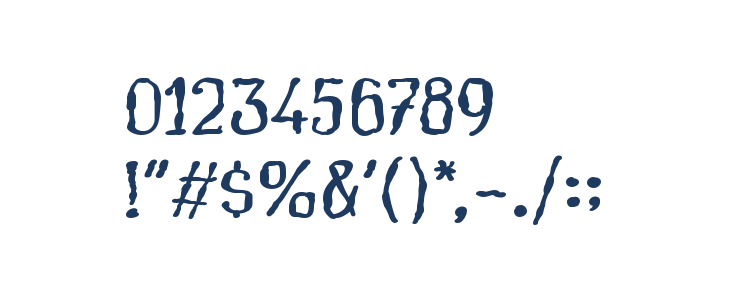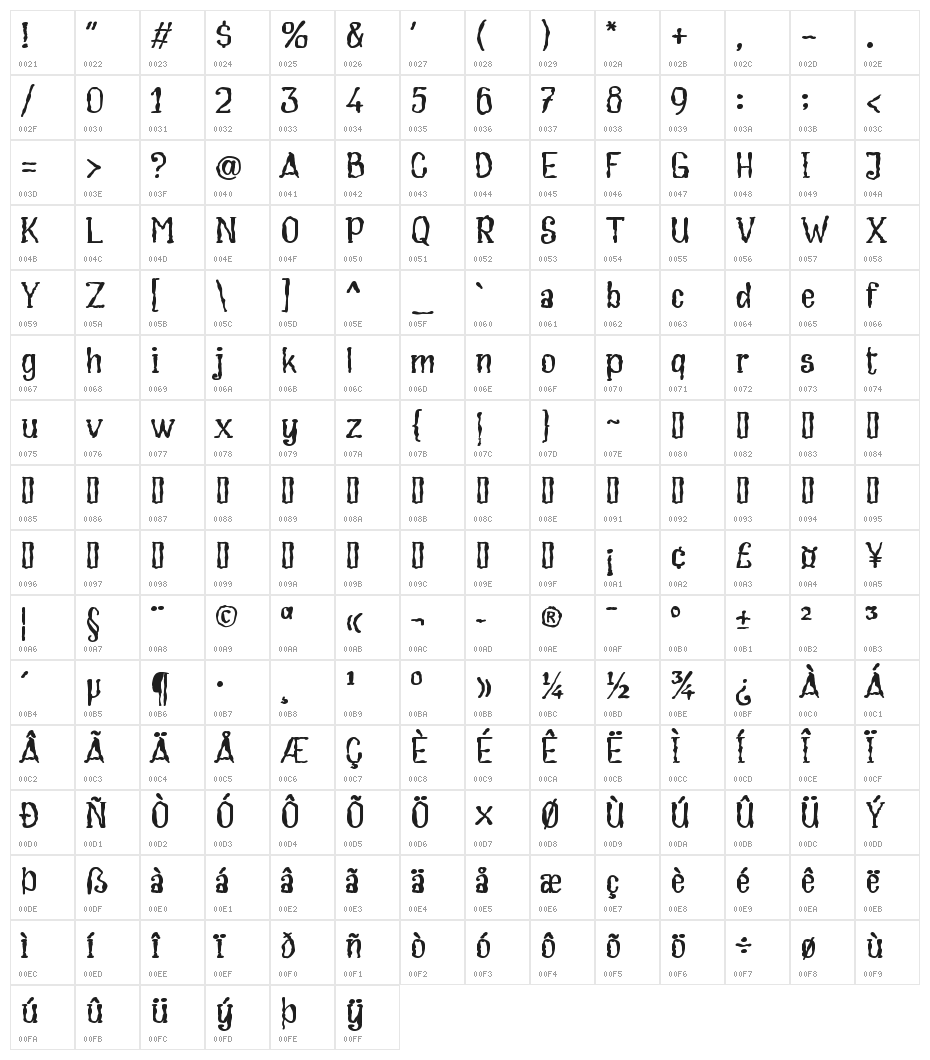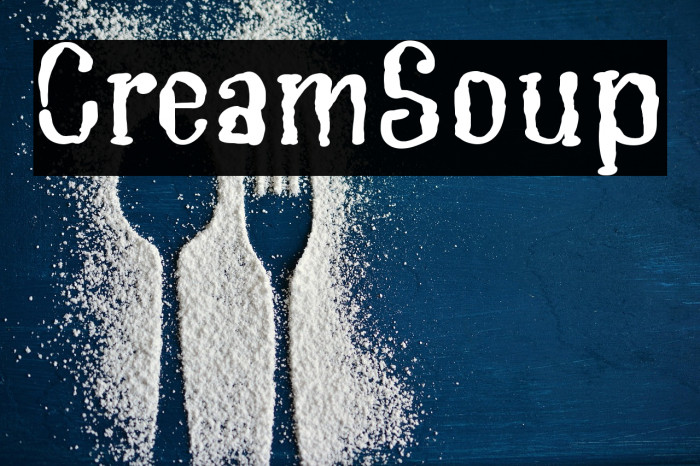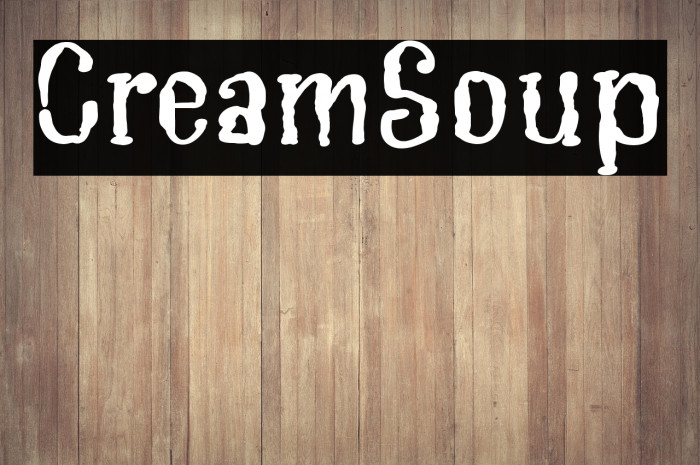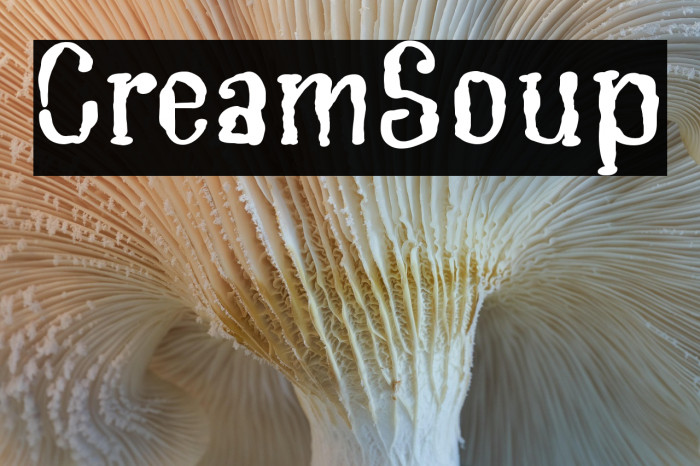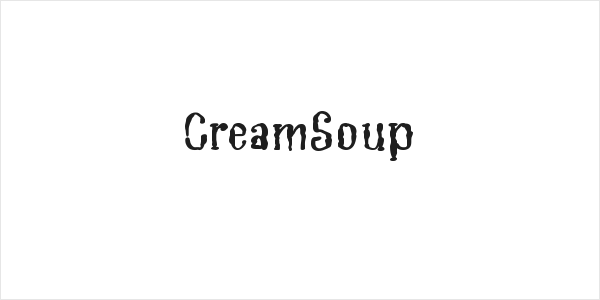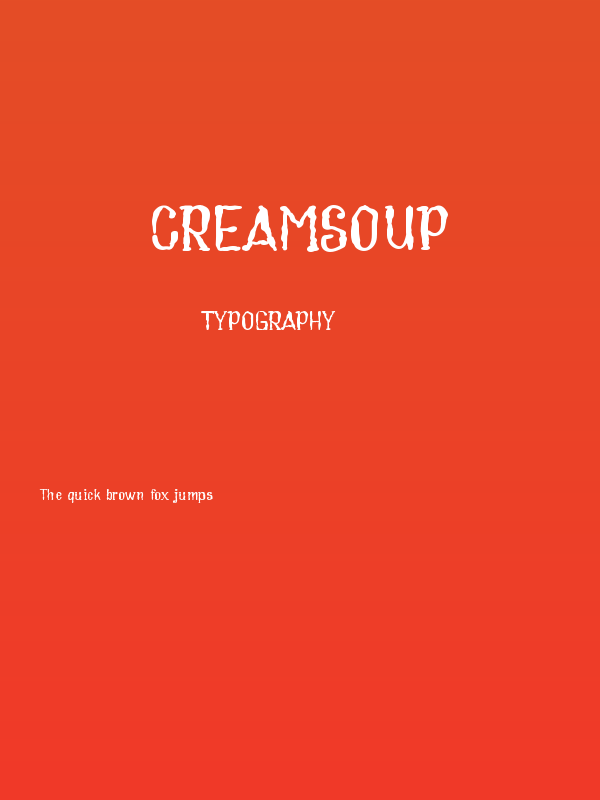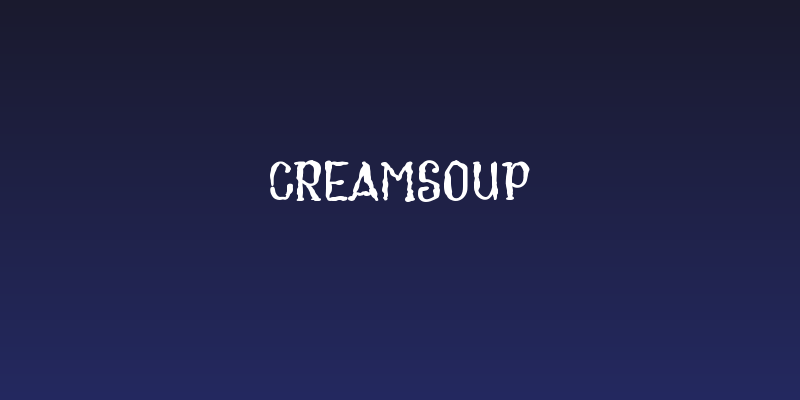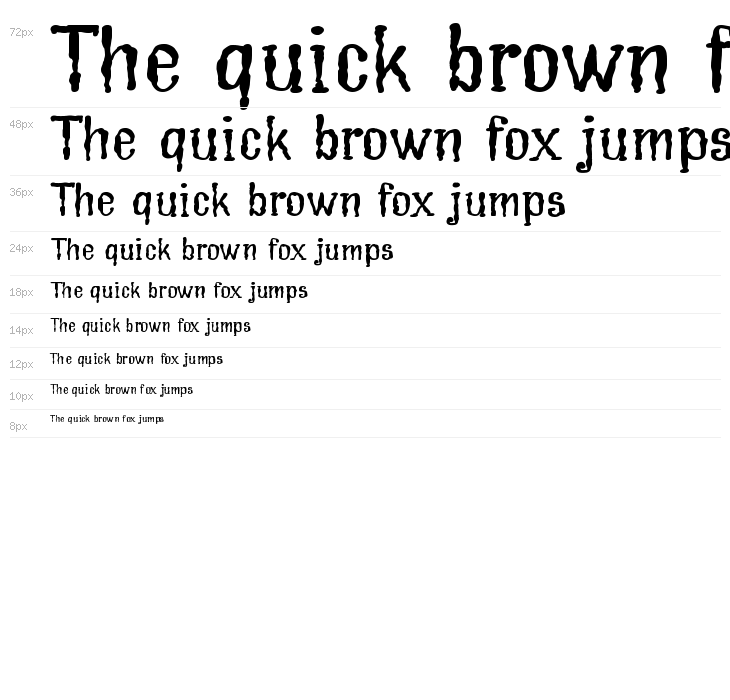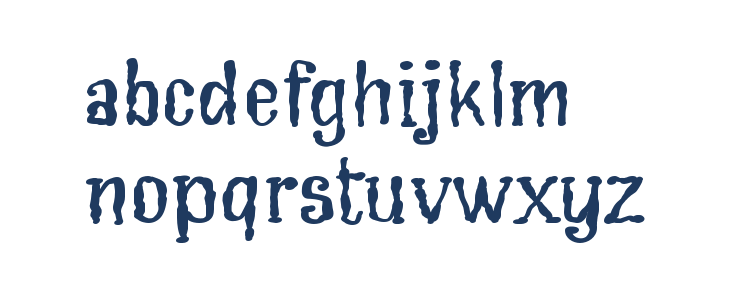
CreamSoup Font
CreamSoup Description
This font features a unique, hand-drawn style with a playful and slightly irregular appearance. The characters have a rough, textured edge that gives them a rustic and organic feel. The uppercase and lowercase letters maintain a consistent style, with rounded forms and varying stroke widths that add to the font's charm. The numbers and special characters are equally distinctive, carrying the same handcrafted aesthetic. This font is perfect for projects that require a touch of whimsy and creativity, such as children's books, casual branding, or artistic posters. Its distinctive style ensures it stands out, making it ideal for eye-catching headlines or titles.
| Use Case | Headlines, Logos, Artistic projects |
| Proposed Projects | Ideal for children's books, artistic posters, casual branding, and creative headlines. |